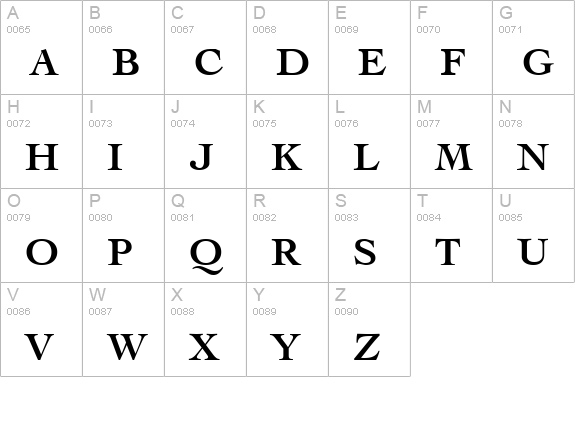
Thesis SSi Bold Font Details
Thesis SSi Bold is a strong, high-contrast variant in the Thesis typeface family \xE2\x80\x94 well suited to headlines, attention-grabbing titles, and strong calls-to-action.
Thesis SSi Bold font is a captivating and versatile typeface that exudes confidence and sophistication. Its bold and strong letterforms command attention, making it perfect for headlines, titles, and large-scale designs. The font features a harmonious balance of thick and thin strokes, creating a visually appealing contrast that adds depth and dimension to any text. One of the most remarkable aspects of Thesis SSi Bold font is that it is available for free. That's right, this stunning typeface can be downloaded at no cost from FontsMarket.com, making it an excellent choice for designers, students, and anyone seeking a high-quality font without breaking the bank. Whether you're working on a logo, website, poster, or any other design project, Thesis SSi Bold font will elevate your work to new heights. Its clean and modern aesthetic gives it a timeless appeal, while its versatility allows it to adapt to a wide range of design styles and themes. With Thesis SSi Bold font, you have the freedom to explore your creativity and bring your vision to life. Its bold presence and distinct personality will make sure your message stands out and leaves a lasting impression on your audience. So don't wait any longer - head over to FontsMarket.com and download Thesis SSi Bold font for free today!